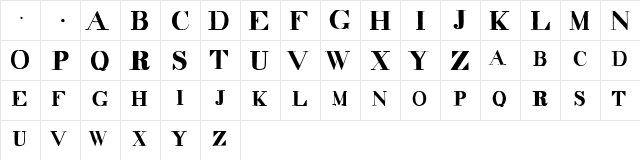
decadence itd condensed Regular
Design Context for decadence itd condensed Typeface
decadence itd condensed is a composed and adaptable typeface that performs quietly and consistently across a wide range of design contexts. Its narrow stance lets it pack a punch even in space-constrained designs.
Pro Tip: Pair decadence itd condensed with a font of contrasting weight or personality to build a more expressive typographic hierarchy.